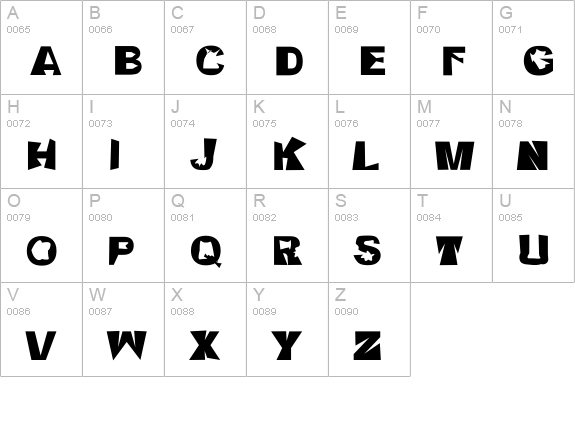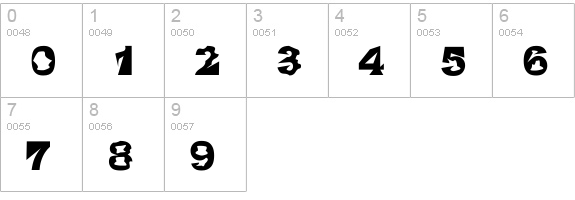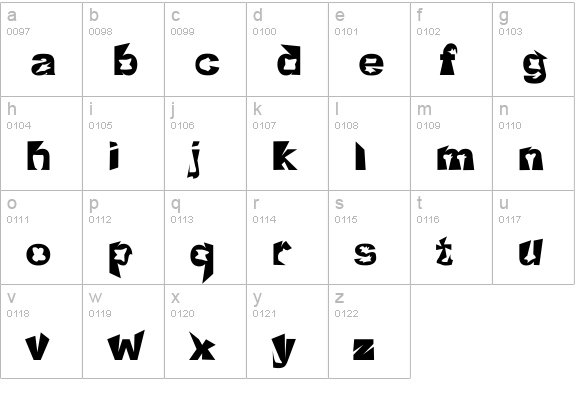
Crackwhore Font Details
Crackwhore font is a unique and edgy typeface that exudes a rebellious and bold vibe. Its jagged edges and distorted letterforms give your designs a gritty and urban feel, perfect for projects that require a touch of raw energy. Despite its unconventional name, Crackwhore font offers a wide range of characters and symbols that can be used to create eye-catching visuals that stand out from the crowd. The best part is that Crackwhore font is completely free to download at FontsMarket.com. Whether you're working on a poster, logo, or website design, this font is sure to add a dose of attitude and personality to your projects. Embrace the unconventional with Crackwhore font and let your creativity run wild!